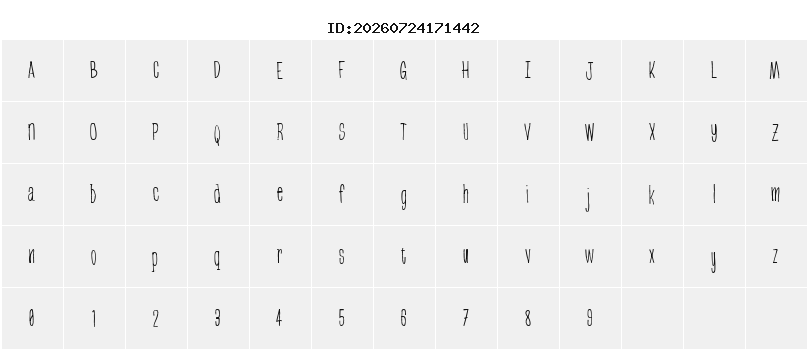
• Font Name: greenbeans
• Font Style: Thin
• Font ID: greenbeans Normal
• Full Font Name: greenbeans Thin
• Designer: Tup Wanders
About greenbeans.ttf
greenbeans.ttf is a modern, elegant sans-serif font designed for ultimate readability and visual harmony. Perfect for branding, headlines, web design, and print materials.